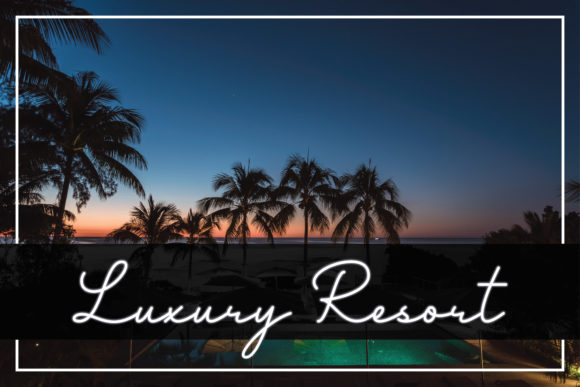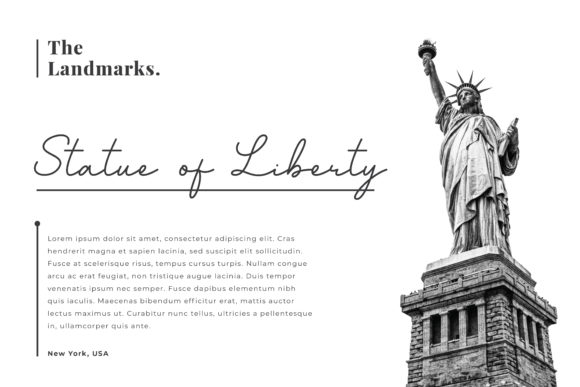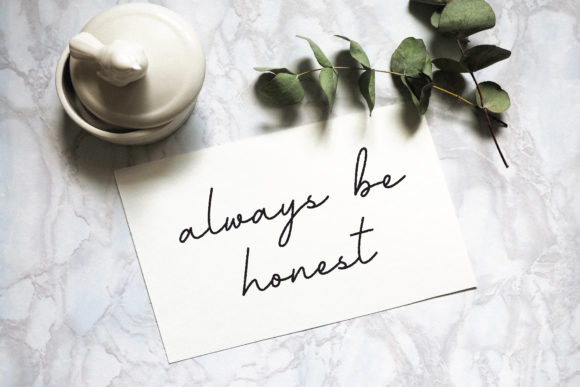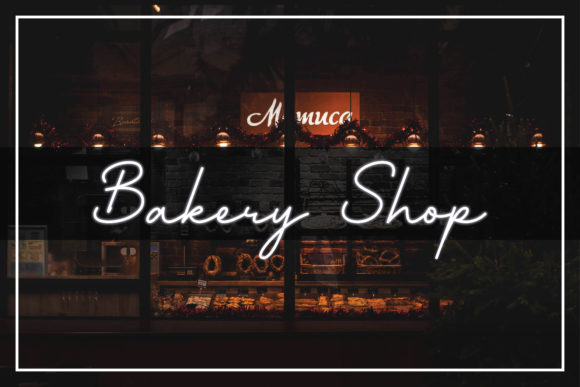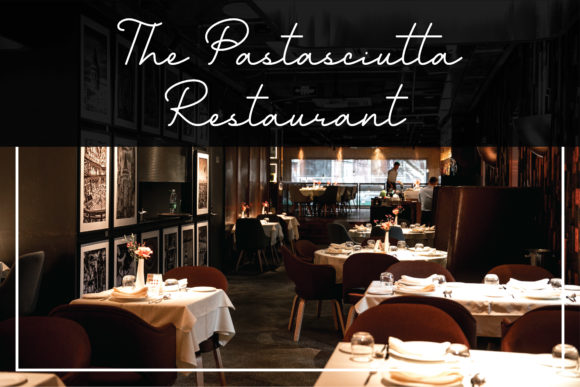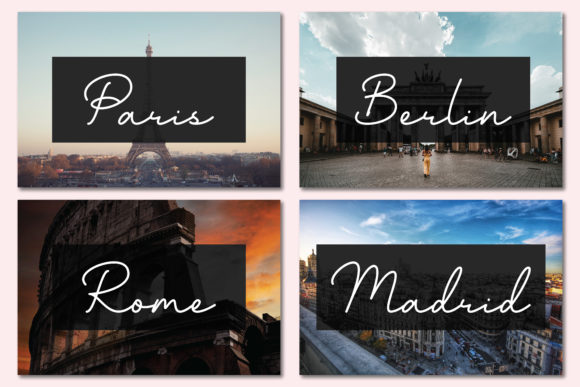
Introduction to La Cavoritte Font
Have you ever been working on a creative project, pouring your heart and soul into every detail, only to realize that the perfect font is missing? That’s exactly what happened to me, until I stumbled upon the La Cavoritte Font. Its sweet and cursive handwritten style instantly captured my attention, and I knew I had to share it with fellow designers.
As a valuable design resource, the La Cavoritte Font is a high-quality addition to any creative project. Whether you’re working on a romantic wedding invitation or a whimsical children’s book, this font will add a touch of elegance and sophistication. Its transparent background allows for seamless integration with any design, making it a versatile choice for designers of all levels.
Key Features of La Cavoritte Font
- La Cavoritte Font is a high-quality design resource ideal for creative projects that require a unique touch.
- It features a transparent background, making it perfect for overlaying on images or videos.
- Its unique characteristics, including its elegant and modern design, make it an excellent choice for designers working on creative projects.
- La Cavoritte Font is a versatile design resource that can be used for a variety of applications, from branding and marketing materials to digital art and creative writing.
Honest Review: La Cavoritte Font
I recently stumbled upon the La Cavoritte Font, and I must say it’s a fantastic addition to any design resource collection. This beautiful font boasts a high quality aesthetic that’s perfect for creative projects that require a touch of elegance.
One of the standout features of La Cavoritte Font is its transparent background, which makes it incredibly versatile. You can easily layer it over images or other design elements without worrying about unwanted backgrounds.
- ✨ Elegant design aesthetic that adds sophistication to any project
- ✨ High quality rendering that looks great at various font sizes
- ✨ Transparent background makes it easy to use in various design scenarios
- ⚠️ Limited character set, which may not be suitable for extensive text-based projects
- ⚠️ Not as customizable as some other fonts in the market
Overall, I’m thoroughly impressed with La Cavoritte Font. It’s a fantastic free download that’s perfect for designers who want to add a touch of elegance to their creative projects. If you’re looking for a high-quality font that’s easy to use, La Cavoritte Font is definitely worth checking out.
La Cavoritte Font
La Cavoritte Font is a high-quality design resource ideal for creative projects that require a unique touch. This free download font features a transparent background, making it versatile for various design applications.
Tips for Getting the Most Out of La Cavoritte Font
To maximize the potential of La Cavoritte Font, use it in combination with other design elements to create a cohesive and visually appealing design. Experiment with different font sizes, colors, and arrangements to achieve the desired effect.
Common Use Cases for La Cavoritte Font
La Cavoritte Font is ideal for creative projects such as:
1. Social media graphics
2. Blog posts and articles
3. Business presentations
4. Marketing materials